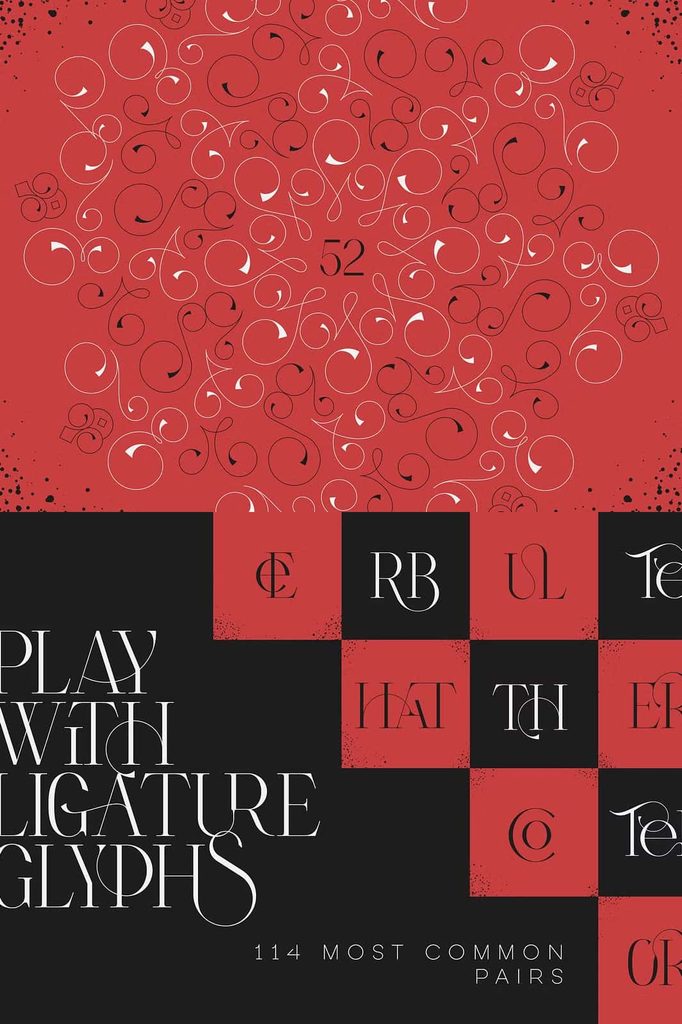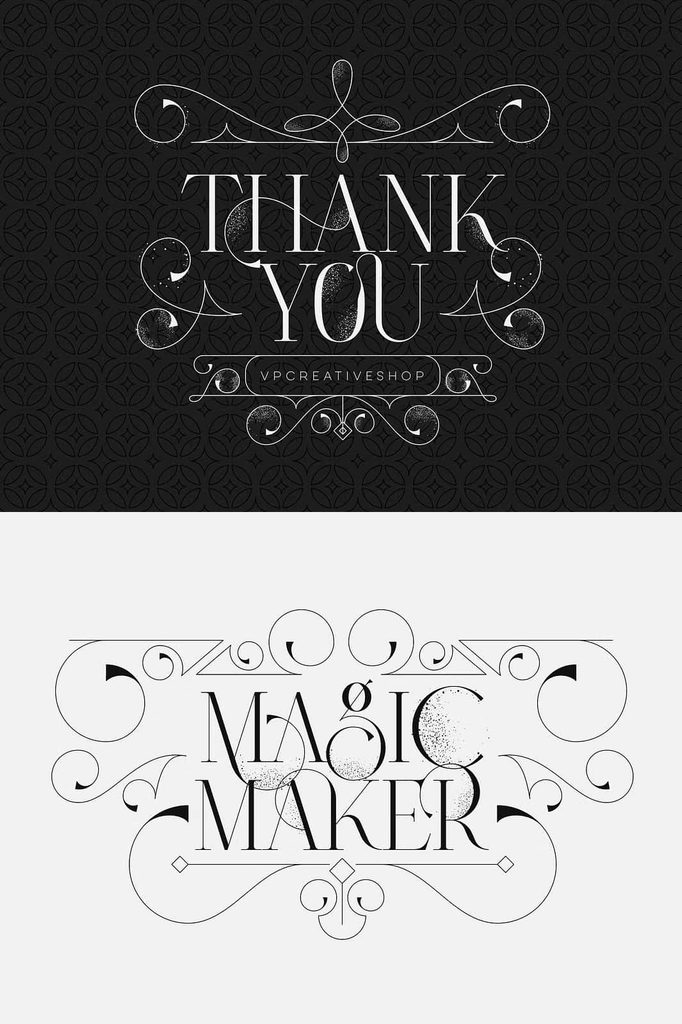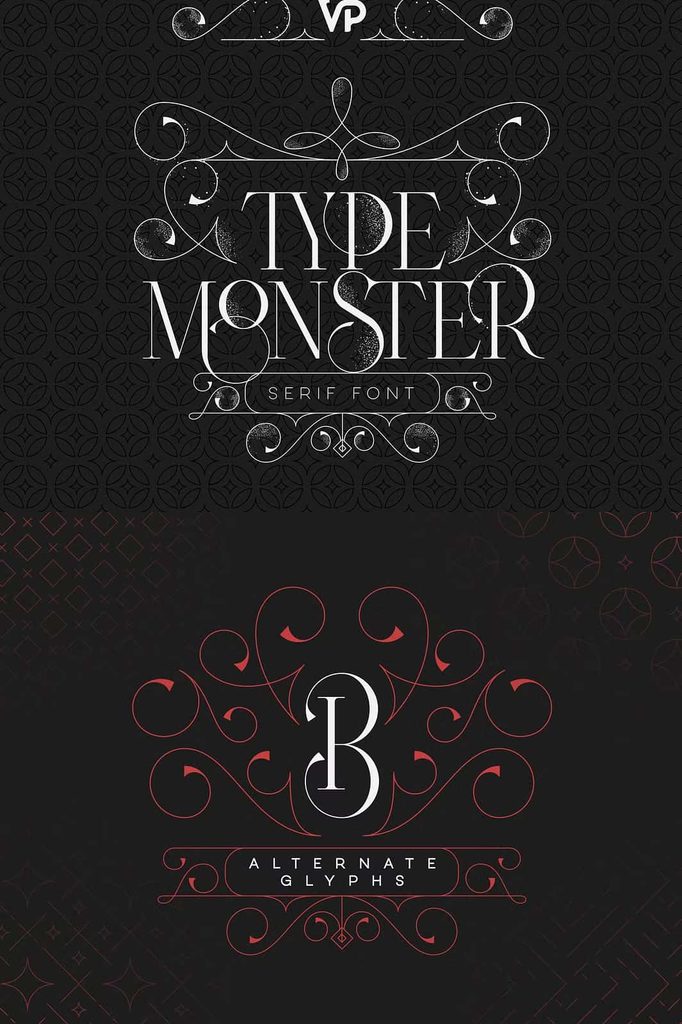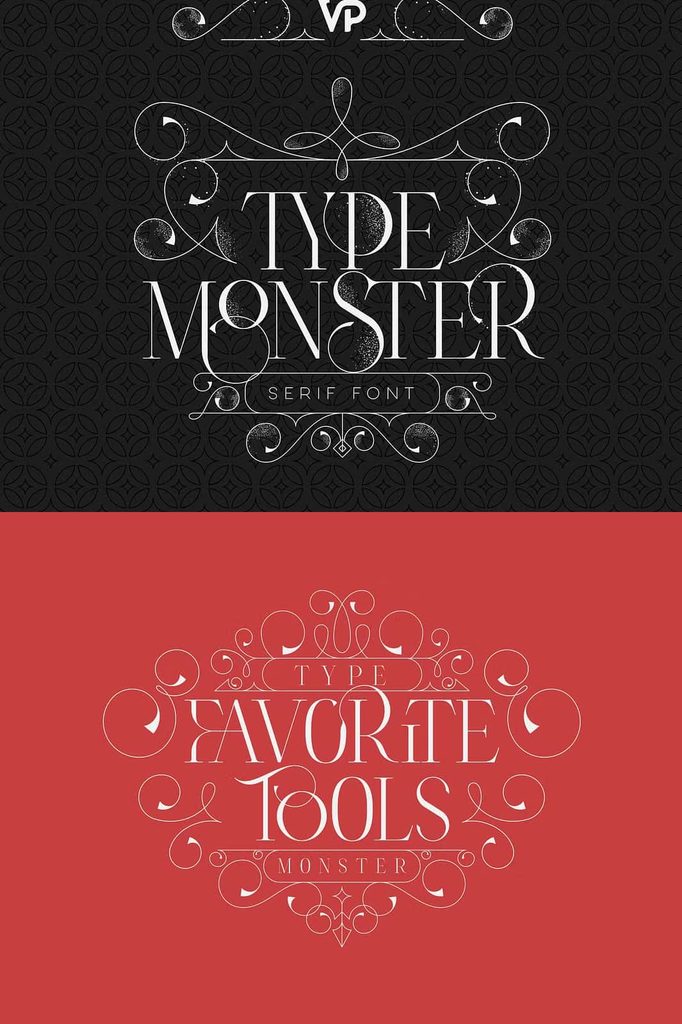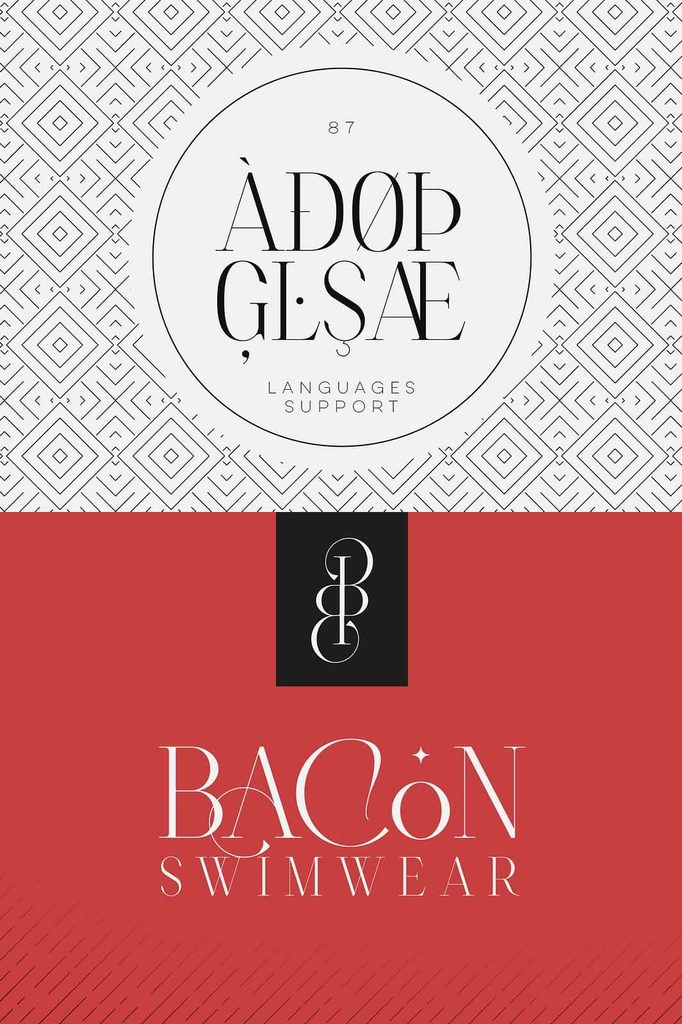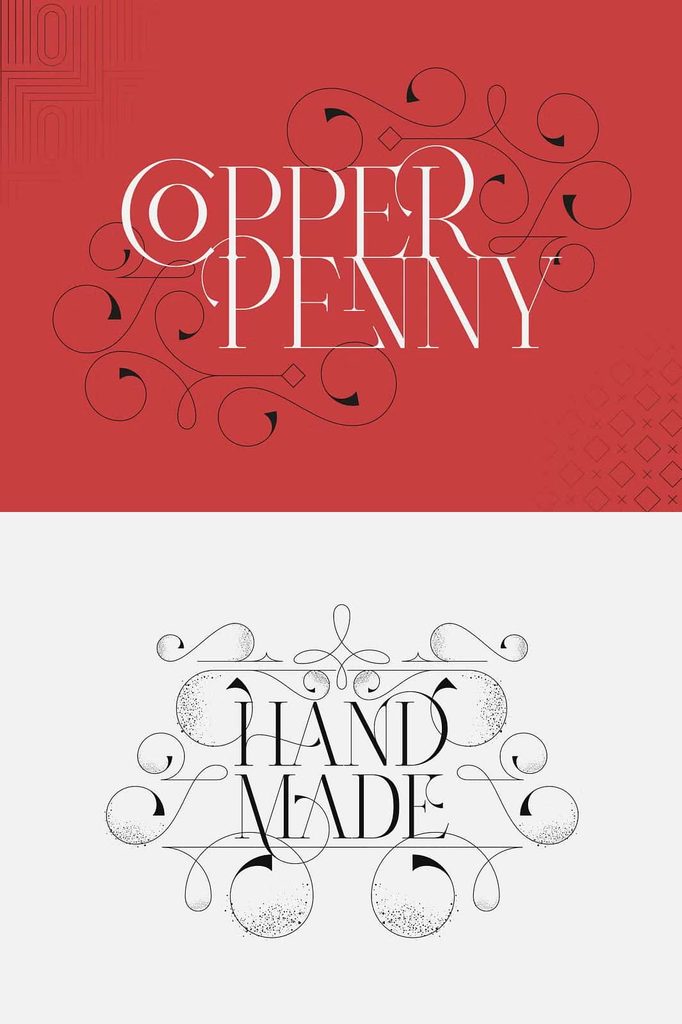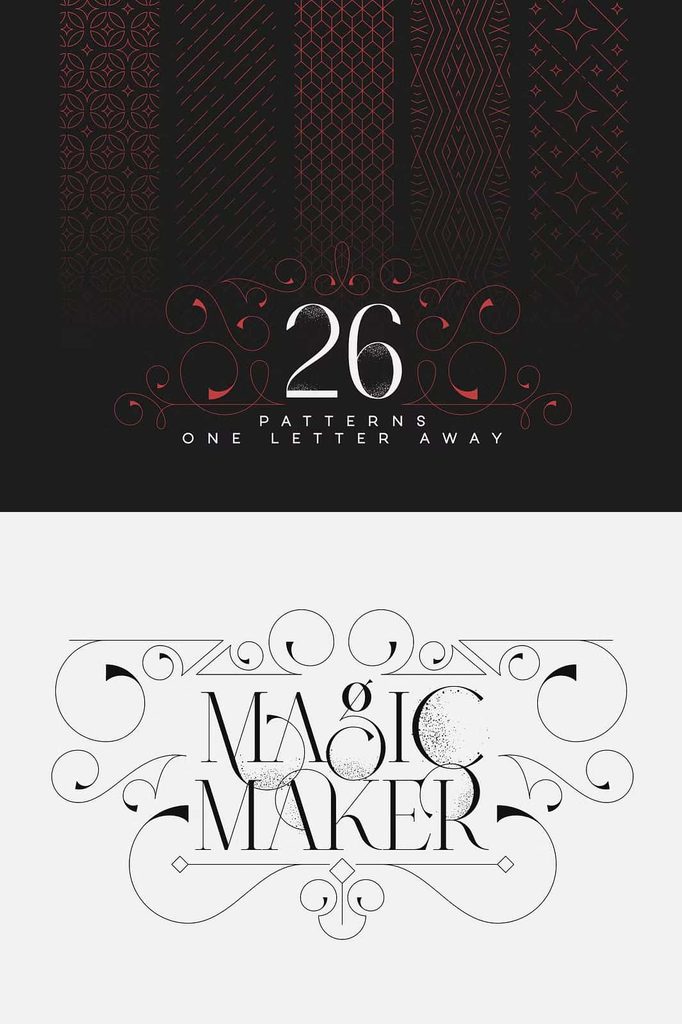
Type Monster Font
Type Monster Font combines sophisticated serif typography with modern artistic character, giving designers a versatile tool for creating elegant and memorable visual compositions. Its classic foundation provides a refined appearance, while its carefully crafted details introduce a contemporary sense of style. The result is a typeface that can move confidently between traditional, luxurious, editorial, and modern creative projects.
One of the most distinctive features of Type Monster is its collection of 114 ligature glyphs. These ligatures create seamless connections between selected letters, adding a custom-made quality to words and phrases. Instead of presenting typography as a collection of ordinary characters, the font gives designers opportunities to create more expressive and visually connected lettering.
Whether you are designing a sophisticated logo, an elegant invitation, a fashion identity, a magazine cover, packaging, social media artwork, or another creative project, Type Monster Font can help establish a polished typographic presence. Its combination of classic serif structure and artistic details gives you plenty of room to explore different design directions.
A Sophisticated Serif with Modern Character
Type Monster builds its personality around a refined serif structure. Serif typography has long played an important role in editorial design, luxury branding, publishing, and formal communication because its structured forms can communicate authority and elegance. Type Monster takes this familiar foundation and adds modern artistic details to create a more distinctive visual experience.
The carefully designed letterforms provide a strong foundation for headlines, titles, brand names, and other prominent text. At larger sizes, the serif details become more noticeable and allow the typography to function as a major visual element within the composition.
The font’s modern character also makes it suitable for contemporary branding. Designers can use Type Monster in clean minimalist layouts or combine it with decorative elements to create a more elaborate appearance. This flexibility allows the typeface to adapt to the personality of each project.
114 Ligature Glyphs for Custom Typography
Type Monster stands apart through its 114 ligature glyphs. Ligatures combine specific letter pairs or groups into specially designed forms, creating smoother and more distinctive connections. This feature can give typography a more crafted appearance and help designers move beyond standard letter combinations.
These ligatures can become particularly effective in logos, names, headlines, invitations, and decorative typography. By selecting suitable combinations, you can create lettering that feels more intentional and personalized.
The ligature system also encourages experimentation. Try different letter combinations, word lengths, and typographic arrangements to discover unique results. A simple word can gain a completely different character when you introduce carefully selected ligatures.
For designers who value detailed typography, these additional glyphs provide more creative control. You can use them subtly to refine a word or make them part of a more expressive typographic composition.
Elegant Branding and Logo Design
Type Monster Font works especially well for sophisticated branding projects. Its serif foundation gives business names a polished appearance, while the ligatures can add a custom identity that helps distinguish the logo from ordinary type treatments.
Use Type Monster for fashion labels, beauty brands, creative studios, photographers, luxury-inspired businesses, event companies, publishers, boutiques, lifestyle brands, and other businesses that want an elegant visual identity.
For logo design, start with the brand name and experiment with spacing, capitalization, and ligature combinations. Keep the composition simple enough for the main lettering to remain recognizable. You can then introduce supporting graphic elements such as thin borders, monograms, simple symbols, or subtle decorative details.
Perfect for Editorial and Magazine Design
The sophisticated appearance of Type Monster makes it an excellent choice for editorial projects. Use the font for magazine covers, feature headlines, section titles, fashion editorials, book covers, brochures, lookbooks, and promotional publications.
Large serif headlines can establish an elegant visual hierarchy, while the ligatures can add distinctive details to selected words. Pair the typography with photography and generous whitespace to create a polished editorial composition.
The typeface can also complement both classic and contemporary layouts. Use restrained spacing and minimal graphics for a modern editorial look, or introduce decorative elements and textured backgrounds for a more traditional artistic presentation.
Elegant Wedding Invitations and Stationery
Type Monster Font can bring a sophisticated and personalized quality to wedding stationery. Its refined serif appearance suits formal invitations, while the ligature glyphs provide opportunities to customize names and special phrases.
Use Type Monster for the couple’s names, invitation titles, dates, venue information, or selected decorative text. The ligatures can help names appear more connected and carefully crafted, creating the impression of custom lettering.
Beyond invitations, use the font for save-the-date cards, menus, ceremony programs, seating charts, thank-you cards, welcome signs, and other wedding materials. Consistent typography can help create a unified visual identity throughout the event.
Fashion and Luxury-Inspired Designs
Type Monster naturally complements fashion and luxury-inspired projects. Its sophisticated serif structure can communicate refinement, while the artistic details prevent the typography from feeling generic. This combination makes it useful for fashion campaigns, clothing labels, beauty packaging, editorial advertisements, and premium promotional materials.
For fashion branding, allow the typography to take center stage. Use a simple layout, carefully controlled spacing, and high-quality imagery to create a polished presentation. The font’s distinctive letter combinations can also become a recognizable part of the brand’s visual language.
Use the typeface for collection names, campaign headlines, product names, promotional messages, and editorial titles. Its versatility allows you to maintain a sophisticated identity across different marketing materials.
Creative Social Media Graphics
Modern social media designs often depend on strong typography to communicate information quickly. Type Monster can help create elegant quote graphics, promotional posts, announcements, campaign artwork, product launches, and branded content.
Use large headlines to capture attention and reserve the ligatures for key words or short phrases. This approach allows the decorative details to enhance the design without reducing readability.
For consistent branding, establish a repeatable system using Type Monster for primary headlines and a simple supporting font for secondary information. Maintain consistent spacing and typography across your posts to create a recognizable visual identity.
Packaging and Product Branding
Type Monster Font can add a premium appearance to product packaging and labels. Its elegant serif forms can help products communicate quality, sophistication, and attention to detail.
Use the font for product names, collection titles, brand names, packaging headlines, and selected decorative elements. Pair it with a clean supporting typeface for ingredients, descriptions, specifications, or other practical information.
The ligature glyphs can also create distinctive product names that stand out on shelves, online stores, or promotional materials. A carefully designed wordmark can become an important part of the product’s identity.
Recommended Design Applications
- Logo and brand identity design
- Fashion branding and campaigns
- Luxury-inspired visual identities
- Wedding invitations and stationery
- Magazine covers and editorial layouts
- Book covers and publishing projects
- Product packaging and labels
- Beauty and cosmetics branding
- Advertising and promotional designs
- Photography branding
- Website headings and digital campaigns
Make Typography Feel Custom-Made
The extensive ligature selection gives Type Monster a valuable advantage when you want your typography to feel more personalized. Instead of accepting the default appearance of standard letter combinations, you can explore alternative connections and create a more distinctive treatment.
This feature works especially well for names and short phrases because each typographic detail remains visible. Use ligatures strategically rather than applying every decorative option at once. A few carefully selected combinations can create a refined result without making the composition feel crowded.
When designing a logo or headline, test several variations before choosing the final arrangement. Small changes in spacing, letter combinations, and ligature usage can significantly influence the overall personality of the typography.
Pair Type Monster with Supporting Fonts
Type Monster has a strong visual personality, so pairing it with a simpler font can create a balanced composition. A clean sans serif can handle body copy, descriptions, captions, and other secondary information while Type Monster takes responsibility for headlines and prominent text.
You can also pair it with a restrained serif if you want to maintain a classic editorial aesthetic. However, avoid combining several highly decorative typefaces in one layout. Let Type Monster remain the primary expressive element and choose supporting typography that reinforces its character.
Why Choose Type Monster Font?
Type Monster Font provides a strong combination of classic serif elegance and modern artistic expression. Its 114 ligature glyphs give designers additional control over letter combinations and create opportunities for more distinctive typography.
The font adapts to many creative applications, from sophisticated branding and fashion design to wedding stationery, editorial layouts, packaging, and social media graphics. Its versatile character allows designers to create both timeless and contemporary compositions.
Final Thoughts
Type Monster Font offers a sophisticated approach to serif typography by combining classic letterforms with modern artistic details. Its 114 ligature glyphs give designers the ability to create smoother, more distinctive letter combinations and add a custom-made quality to prominent text.
Use Type Monster for logos, fashion branding, magazine covers, wedding invitations, packaging, social media artwork, editorial projects, and other designs that require elegant display typography. Experiment with its ligatures, spacing, scale, and font pairings to create a composition that reflects the personality of your project.
With its refined serif foundation and extensive ligature options, Type Monster gives designers a flexible way to transform ordinary words into memorable visual elements. Whether you want a classic identity with a modern edge or an artistic typographic treatment with a sophisticated finish, Type Monster Font provides a versatile foundation for creating polished and distinctive designs.